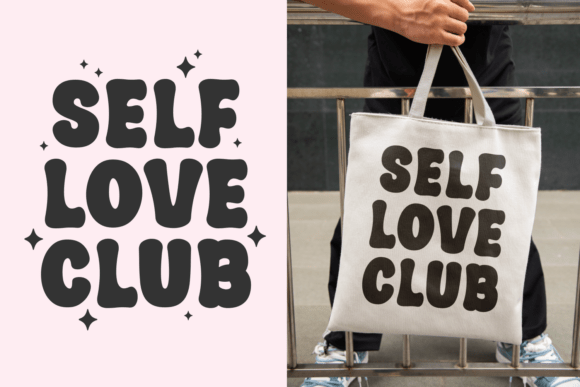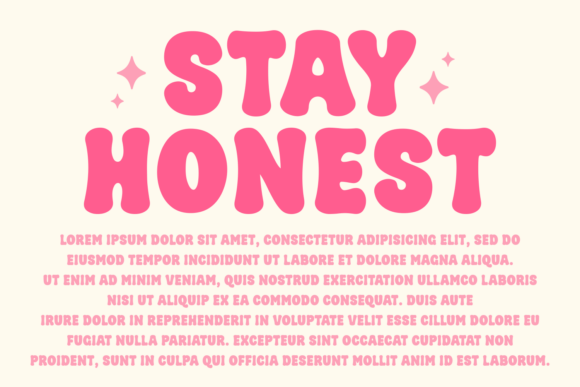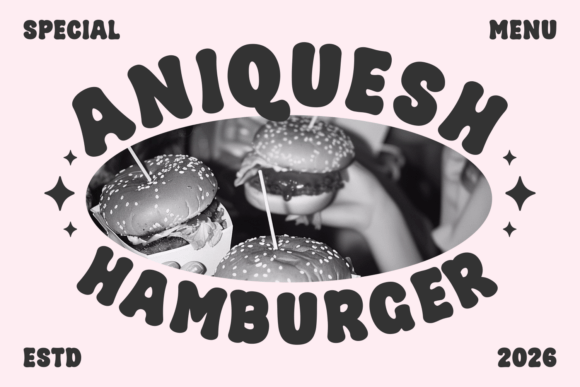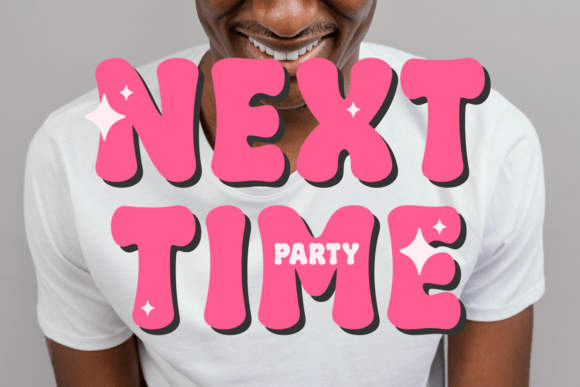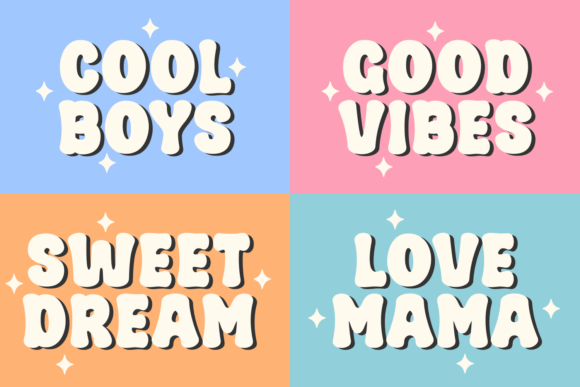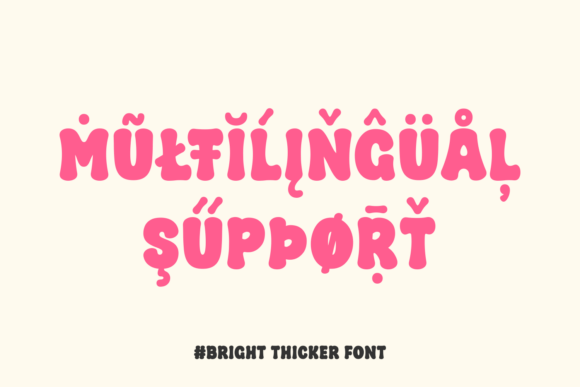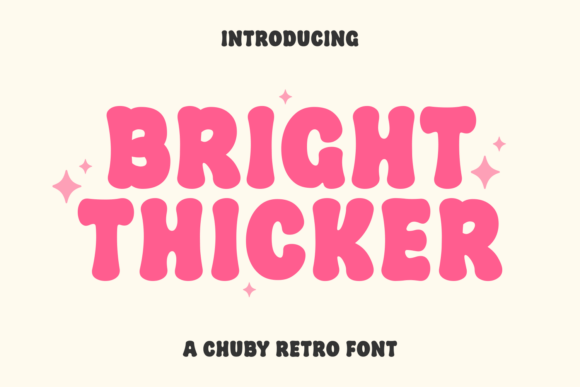
Introducing the Bright Thicker Font: A Groovy Masterpiece
I’ll never forget the design moment that led me to discover the Bright Thicker Font. I was working on a project for a client who wanted a retro-chic vibe with a modern twist. As I scrolled through font libraries, I stumbled upon this delightful typeface that instantly captured my attention. Its playful, bubbly characters seemed to whisper sweet words of love, and I knew I had found the perfect fit.
A Typography Masterpiece
The Bright Thicker Font is a unique blend of retro charm and contemporary freshness. Its generously proportioned characters make it ideal for projects that require a bigger, attention-grabbing typeface. Whether you want to create a bold impact or convey a sense of happiness, this font is sure to deliver.
What I Love About Bright Thicker Font
- ✨ Retro-chic vibe with a modern twist
- ✅ Generously proportioned characters for maximum impact
- 💕 Playful, bubbly feel that’s perfect for creative projects
- 🎉 Versatile and modern design that’s suitable for various applications
While the Bright Thicker Font is a stunning typeface, there are a few minor quirks to consider:
- 🤔 Limited use of OpenType features (but still plenty of glyphs to explore)
- ⚠️ May not be suitable for very small font sizes (due to its bold, chunky design)
The Designer Inspiration Behind Bright Thicker Font
The Bright Thicker Font was inspired by the groovy era of the 1960s and 1970s. Its designer, a typography enthusiast, aimed to capture the playful, carefree spirit of that era while infusing it with a modern twist. The result is a font that’s both nostalgic and fresh, perfect for creative projects that require a unique touch.
- Q: What is the Bright Thicker Font best suited for?
- A: The Bright Thicker Font is ideal for creative projects that require a bold, attention-grabbing typeface, such as posters, flyers, and social media graphics.
- Q: Is the Bright Thicker Font available in different weights or styles?
- A: Currently, the Bright Thicker Font is available in a single weight. However, the designer may release additional weights or styles in the future.